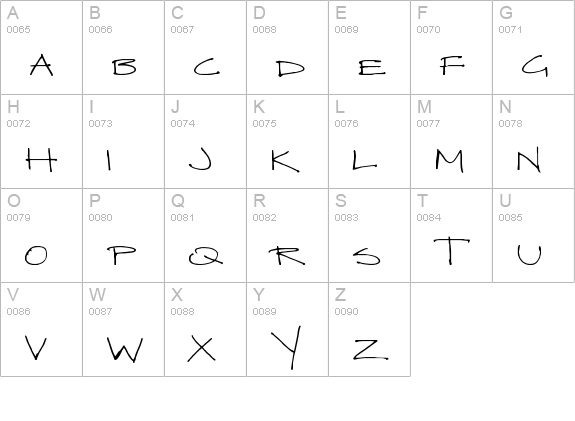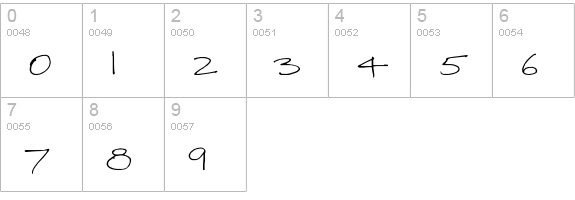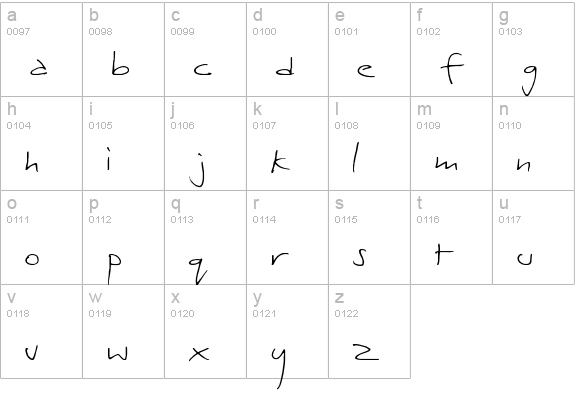
Herbert Font Details
Herbert font is a versatile and modern typeface that exudes sophistication and elegance. With its clean lines and sleek design, Herbert font is perfect for a wide range of design projects, from branding to editorial design. This versatile font can be used for both headlines and body text, making it a practical choice for any project. The best part? Herbert font is available for free download at FontsMarket.com, where you can easily access this stylish font to enhance your creative endeavors. Whether you're working on a website, poster, or logo design, Herbert font will elevate your project with its timeless appeal and contemporary flair. Download Herbert font today and add a touch of sophistication to your designs.